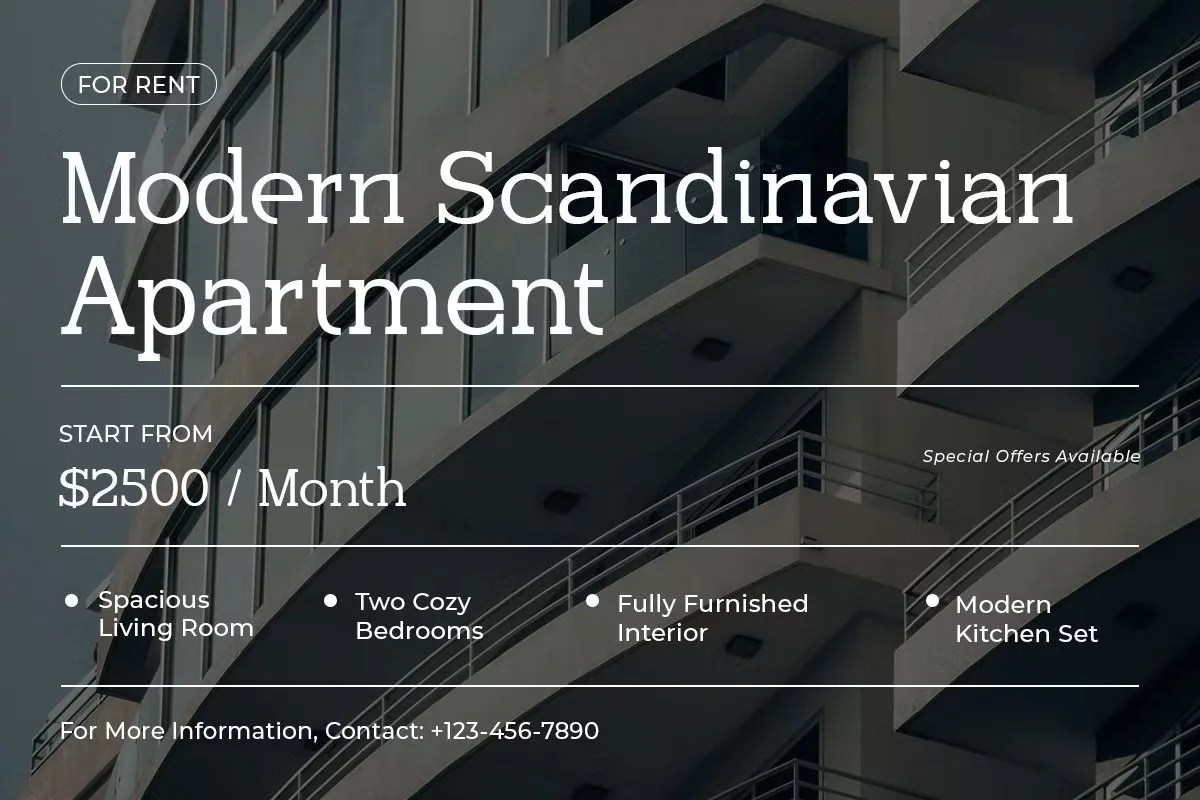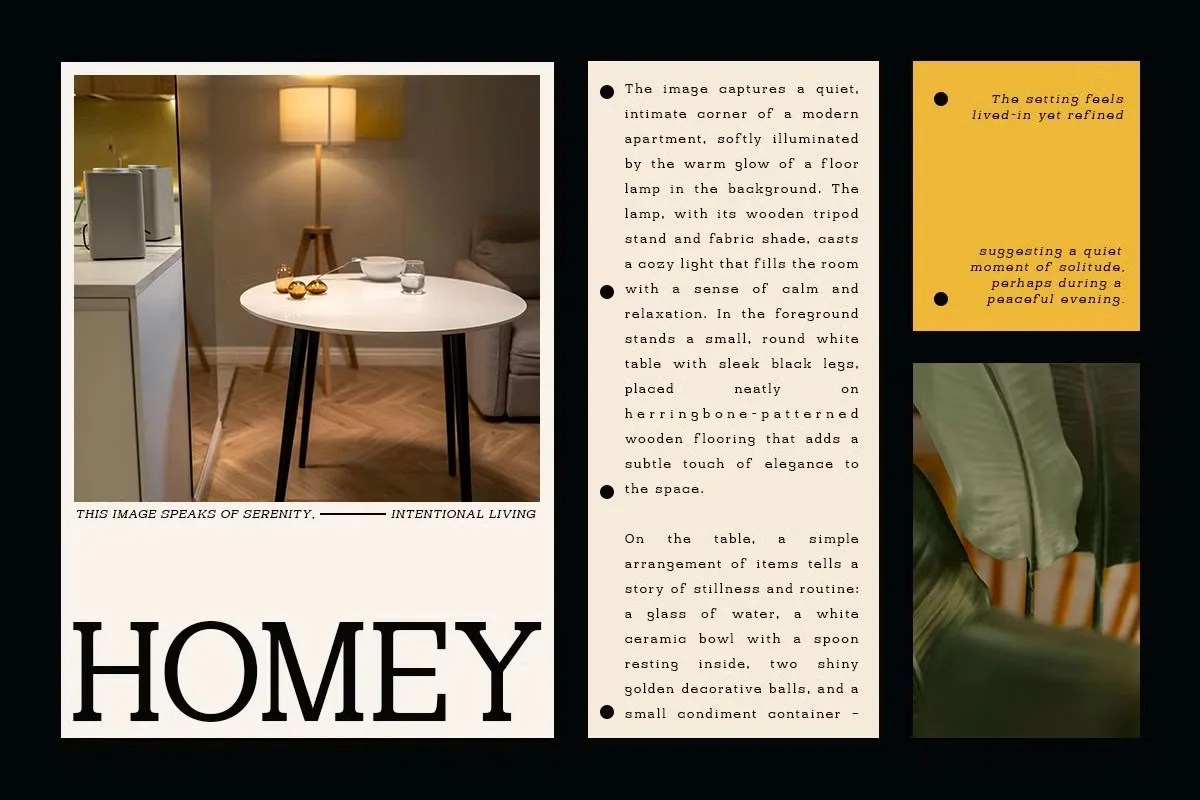
Stravon by Roomspace is a refined serif font that combines elegance with readability. Featuring sharp serifs and balanced strokes, this typeface is perfect for editorials, branding, book covers, invitations, logos, and luxury packaging. Its timeless design brings sophistication to both digital and print projects.
• Elegant serif typeface
• Perfect for branding & logo design
• Ideal for editorials & publishing
• Great for invitations & stationery
• Stylish for book covers & magazines
• Luxurious for packaging & labels
• Works beautifully in social media graphics
Stravon